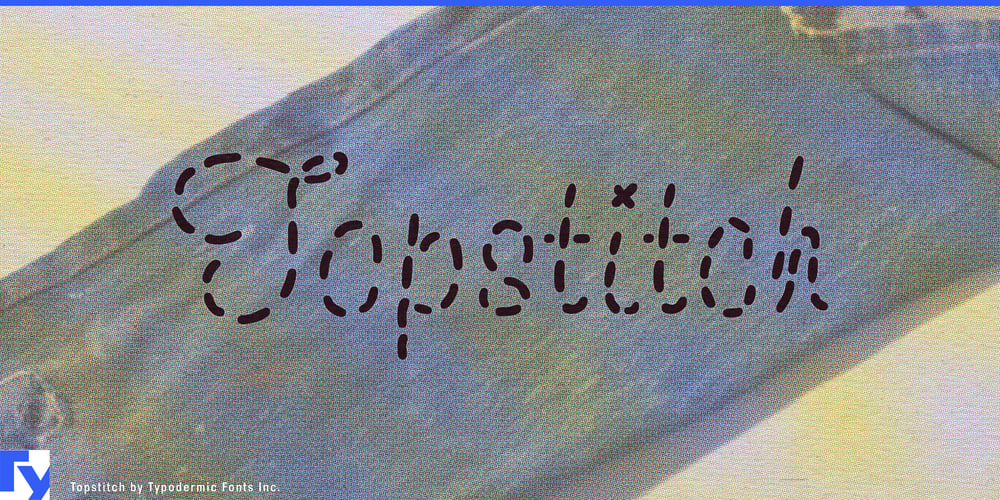
Topstitch Font Family was designed by Ray Larabie and published by Typodermic. Topstitch contains 1 styles and family package options. Topstitch—a typeface that weaves character into your designs with every letter. It’s a celebration of the imperfect art of hand embroidery, complete with all the charming quirks and idiosyncrasies that make handcrafted work so appealing.At first glance, you might think Topstitch is coming apart at the seams. And you’d be right—that’s its strength. The loosely stitched characters present a unique challenge to designers, daring them to push the boundaries of conventional typography. It’s not for the faint of heart, but for those who can master its intricacies, Topstitch offers unparalleled creative possibilities. Each glyph in Topstitch tells a story of careful craftsmanship. From the subtle slant of the strokes to the tiny imperfections in the curves, every detail has been meticulously designed to mimic the organic nature of real embroidery. It’s these “flaws” that give Topstitch its distinctive personality—a refreshing departure from the pixel-perfect world of digital design.For the bold designer, Topstitch is more than just a font—it’s a creative playground. Use it to add a tactile feel to branding projects, infuse warmth into packaging designs, or bring a homespun charm to digital interfaces. The loose stitching, which might initially seem like a limitation, becomes a powerful tool in the hands of a skilled designer. It allows for creative layering, unique texturing, and the ability to truly customize each letter to fit your vision. Topstitch doesn’t just cross borders—it weaves them together. With support for a vast array of Latin-based European writing systems, from Afrikaans to Zulu, this typeface ensures your message resonates across cultures while maintaining its handcrafted appeal.Are you ready to thread the needle of creativity? Topstitch awaits, challenging you to elevate your designs with its distinctive, loosely stitched charm. Get Topstitch today and start crafting messages that don’t just communicate—they resonate with the warmth of the human touch.